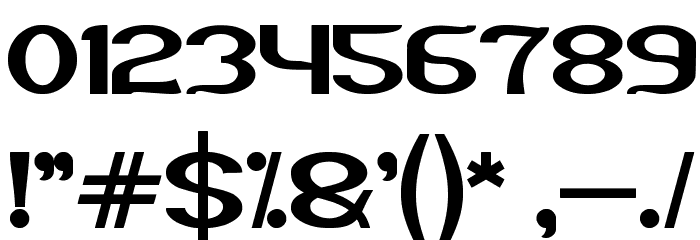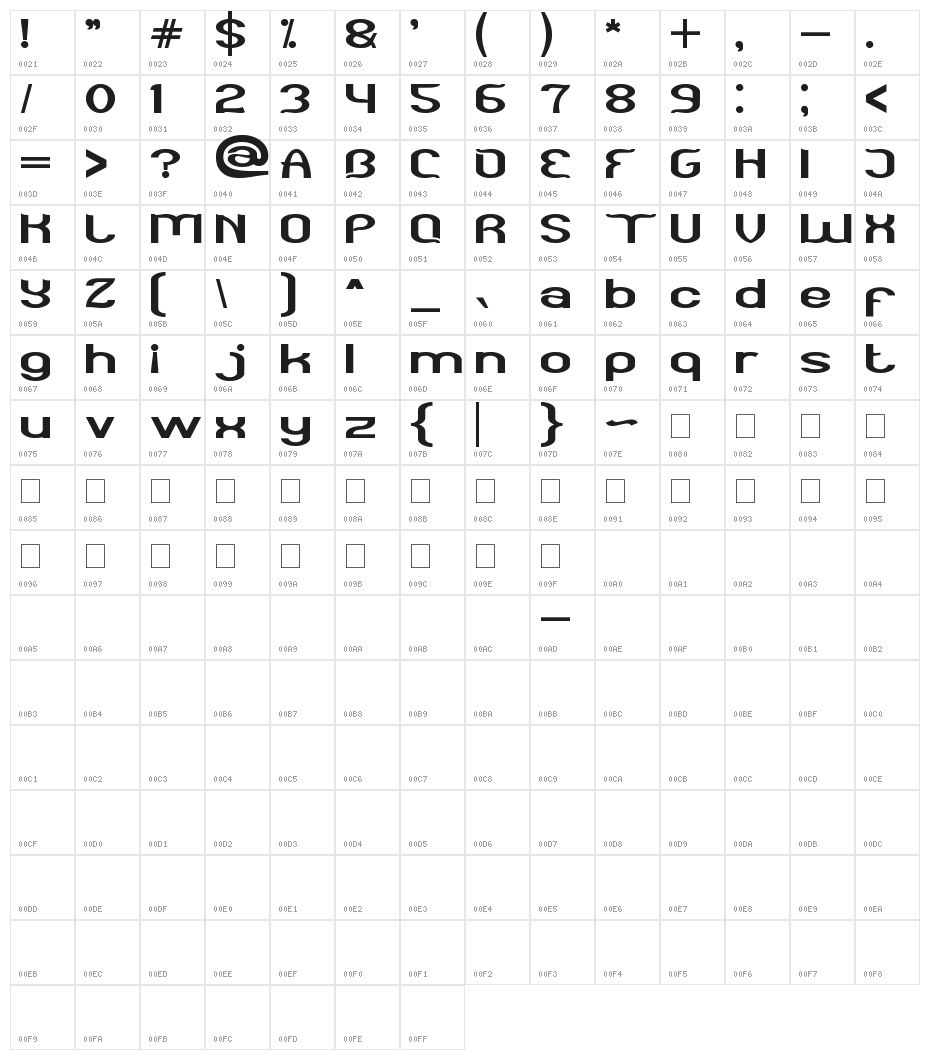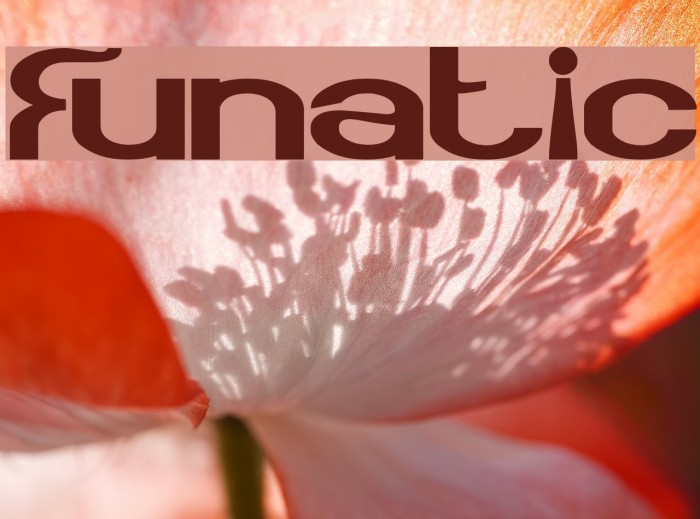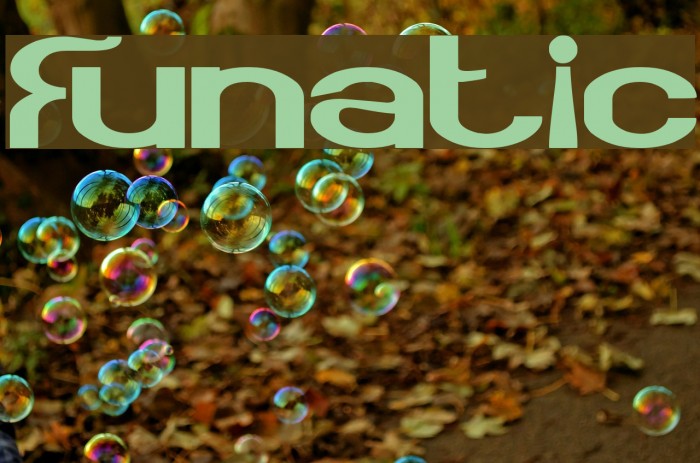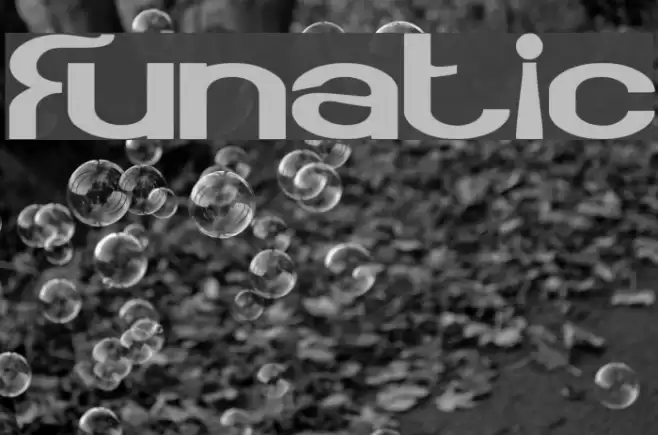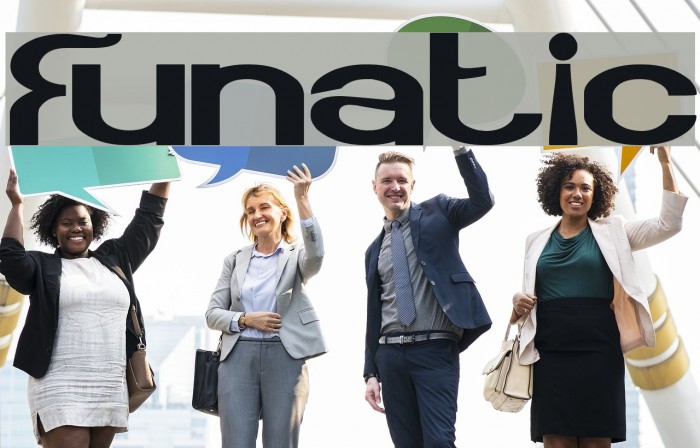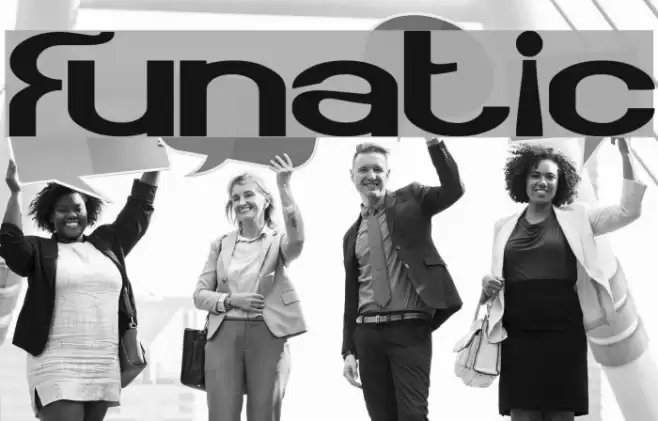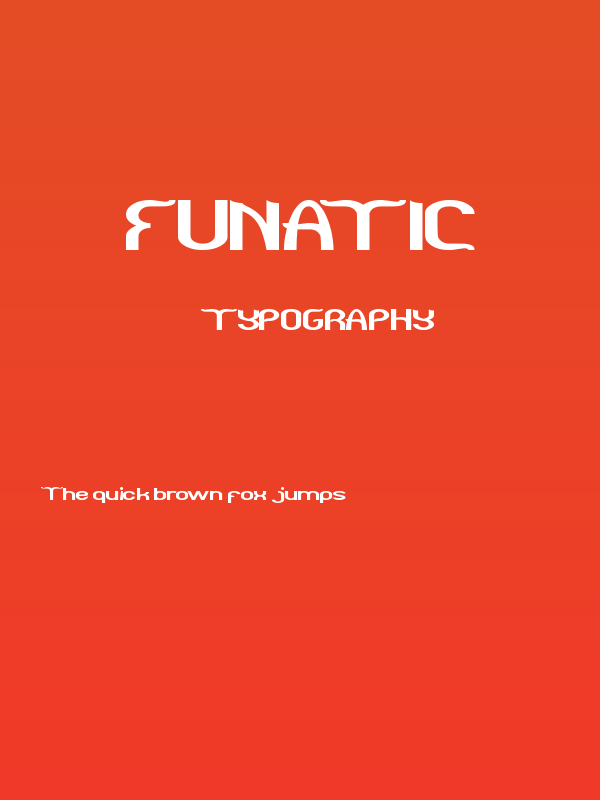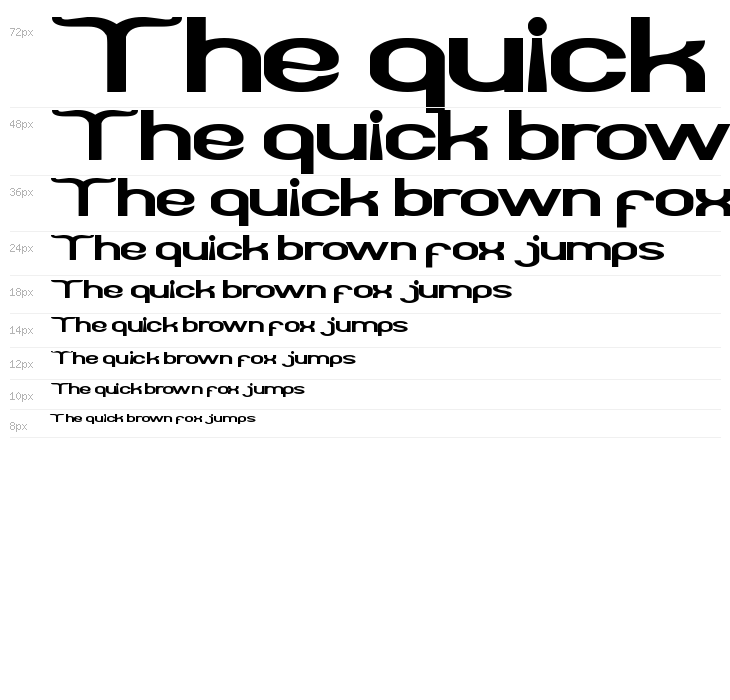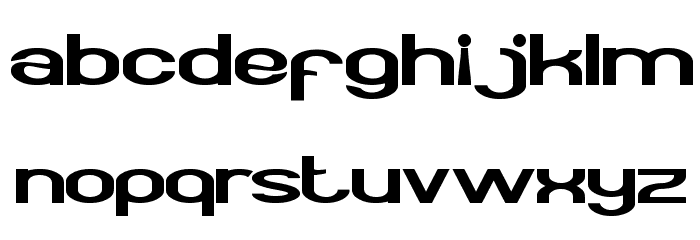
Funatic Font
Funatic Description
This font features a bold and playful design with a modern twist. The characters are uniquely styled with rounded edges and a slight futuristic flair. The uppercase letters have a strong presence, while the lowercase letters maintain a consistent flow. Numbers and special characters are designed to match the overall aesthetic, making them stand out in any design. The font's boldness and distinct character shapes make it ideal for eye-catching headlines and creative projects.
| Proposed Projects | Ideal for branding, posters, headlines, and creative digital designs. |